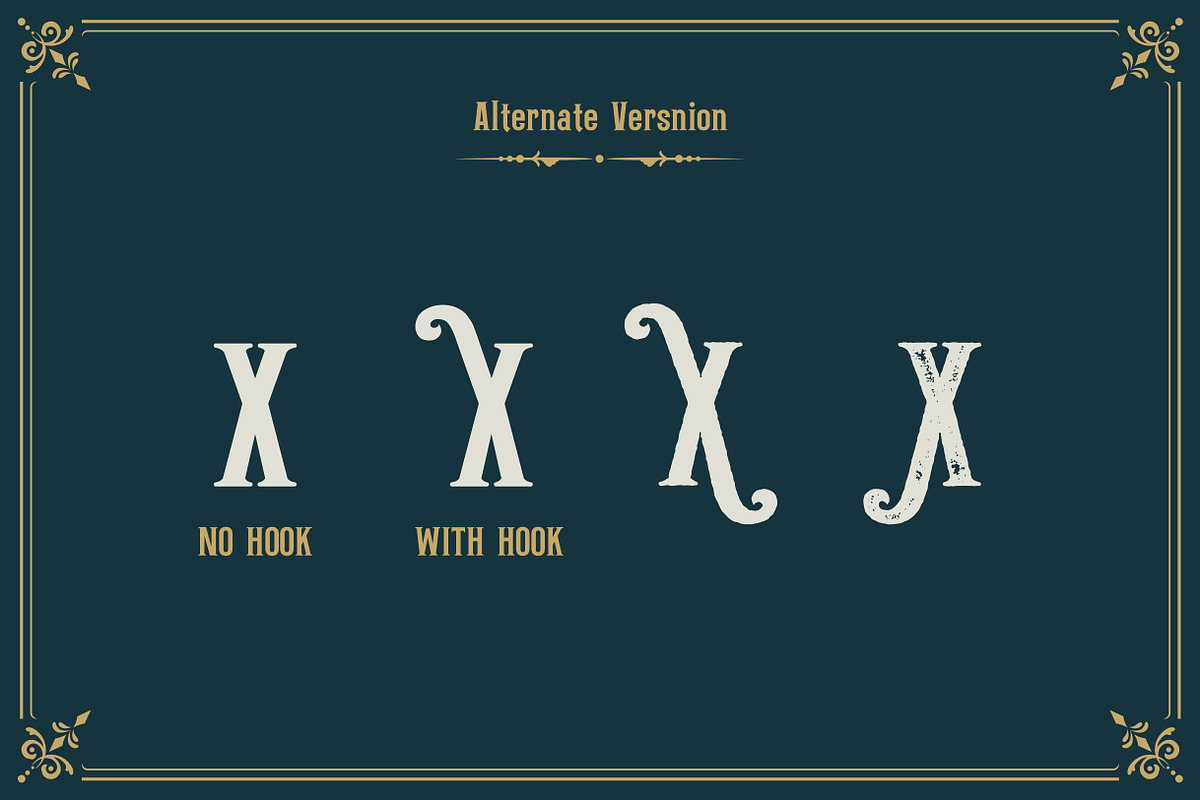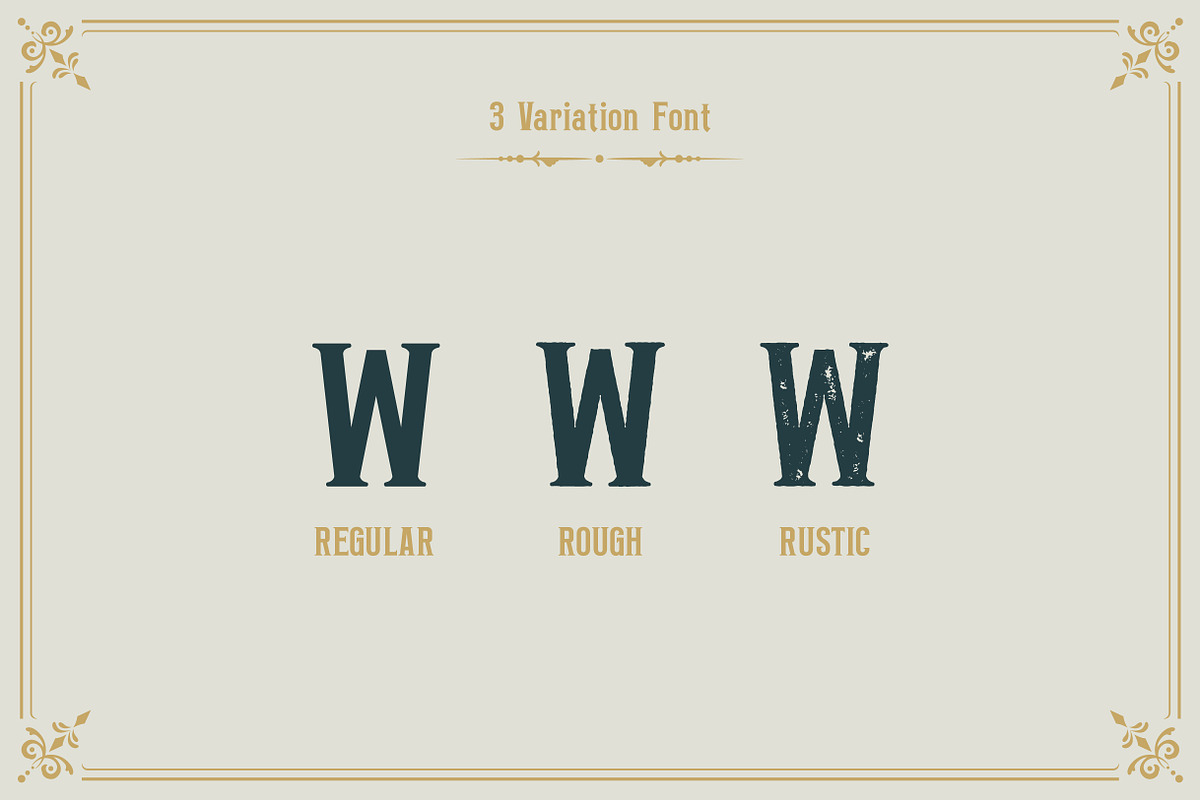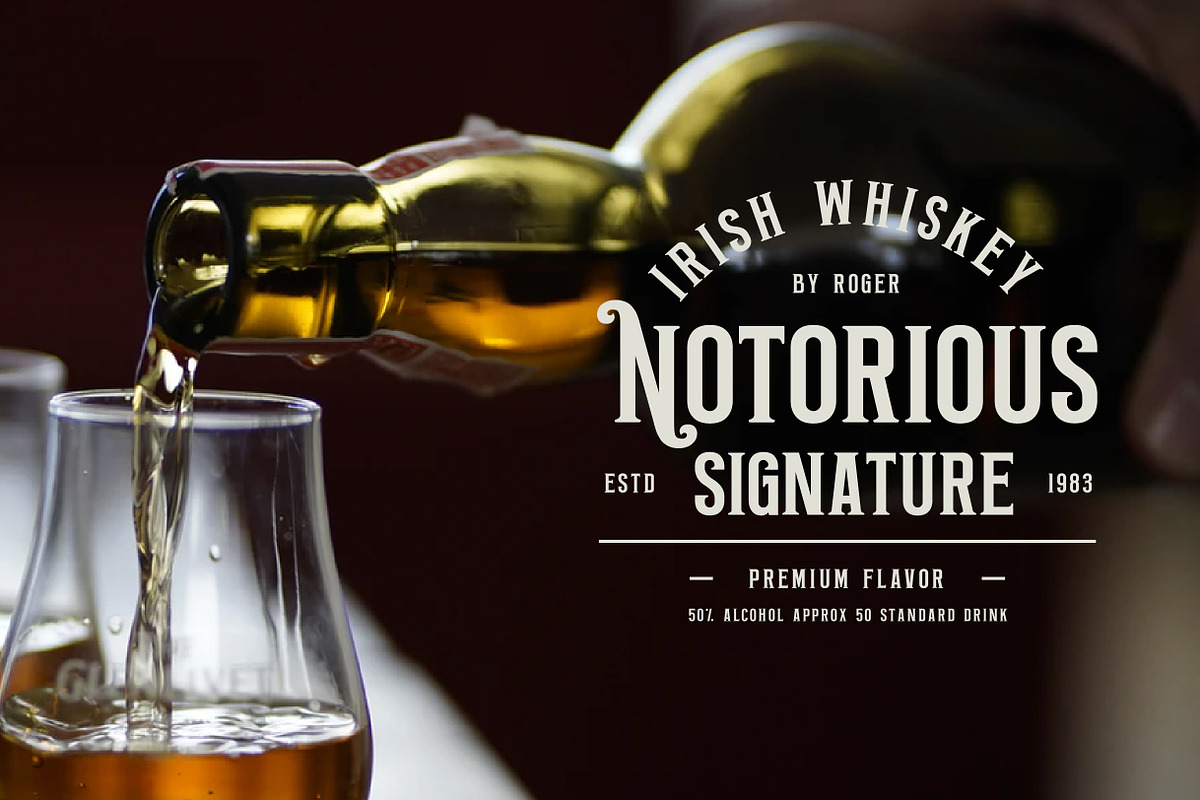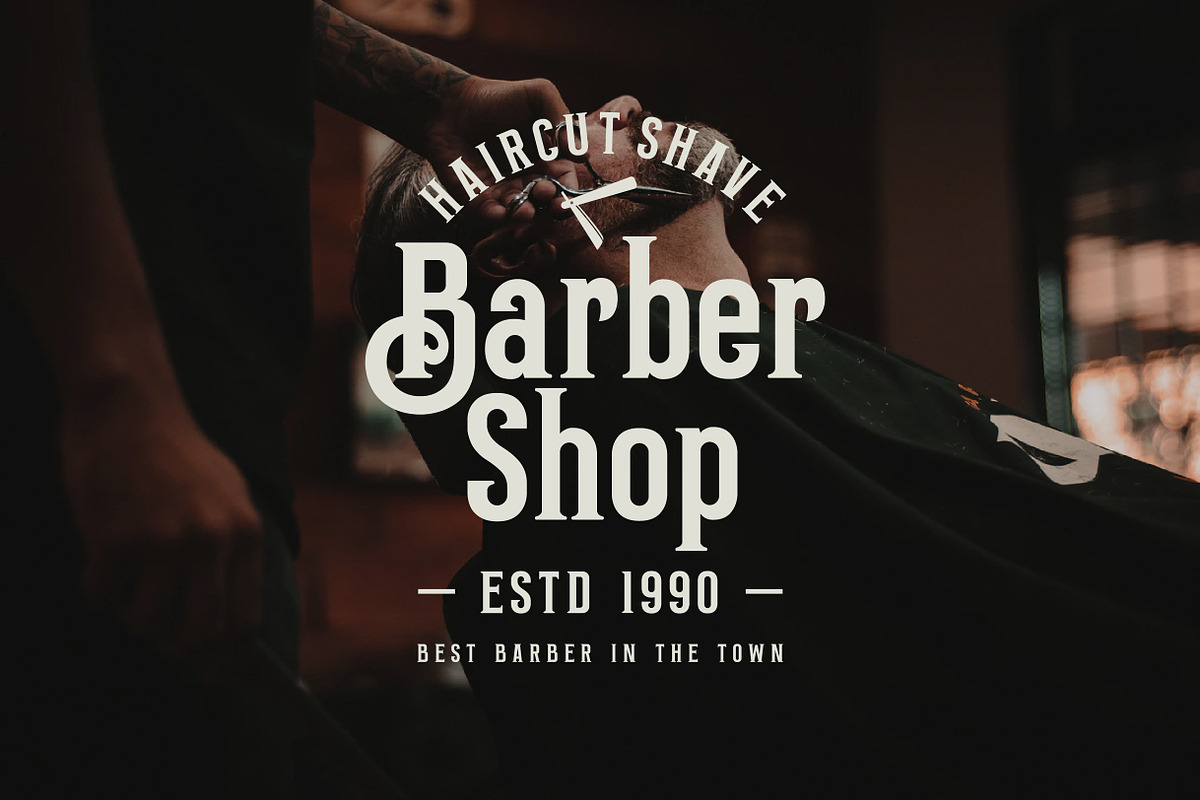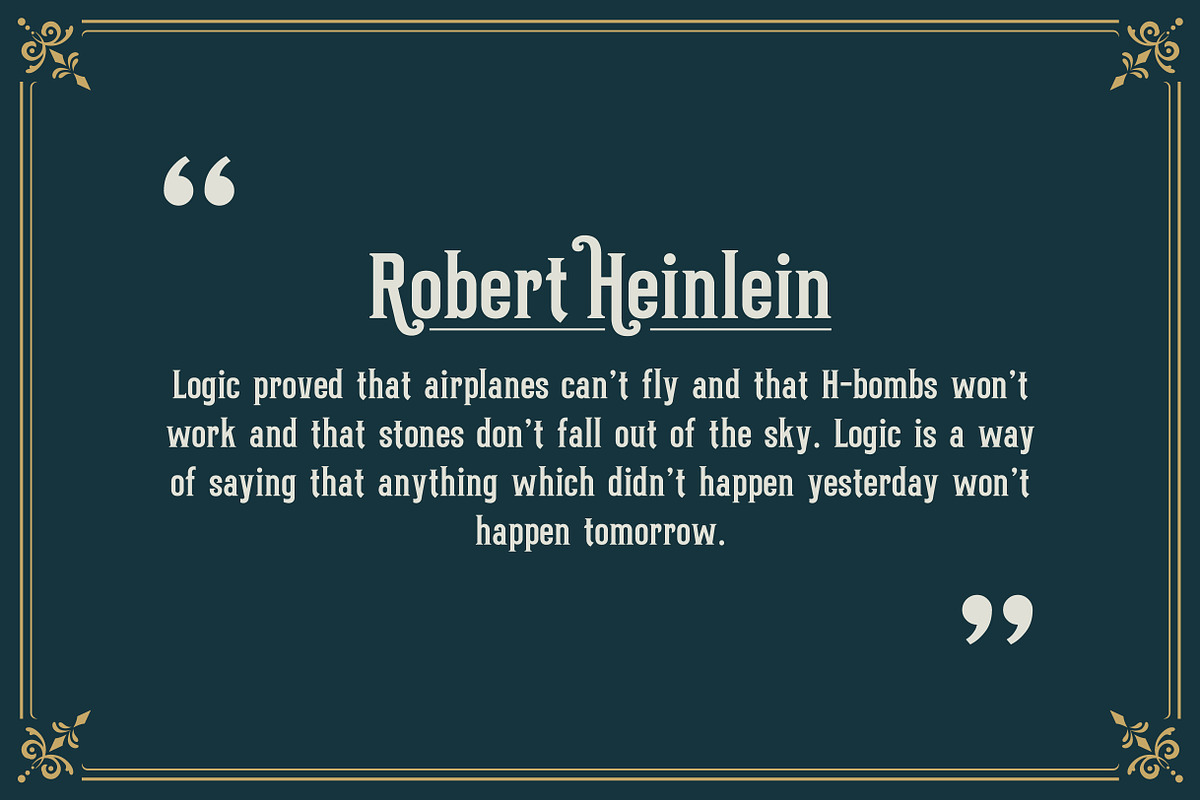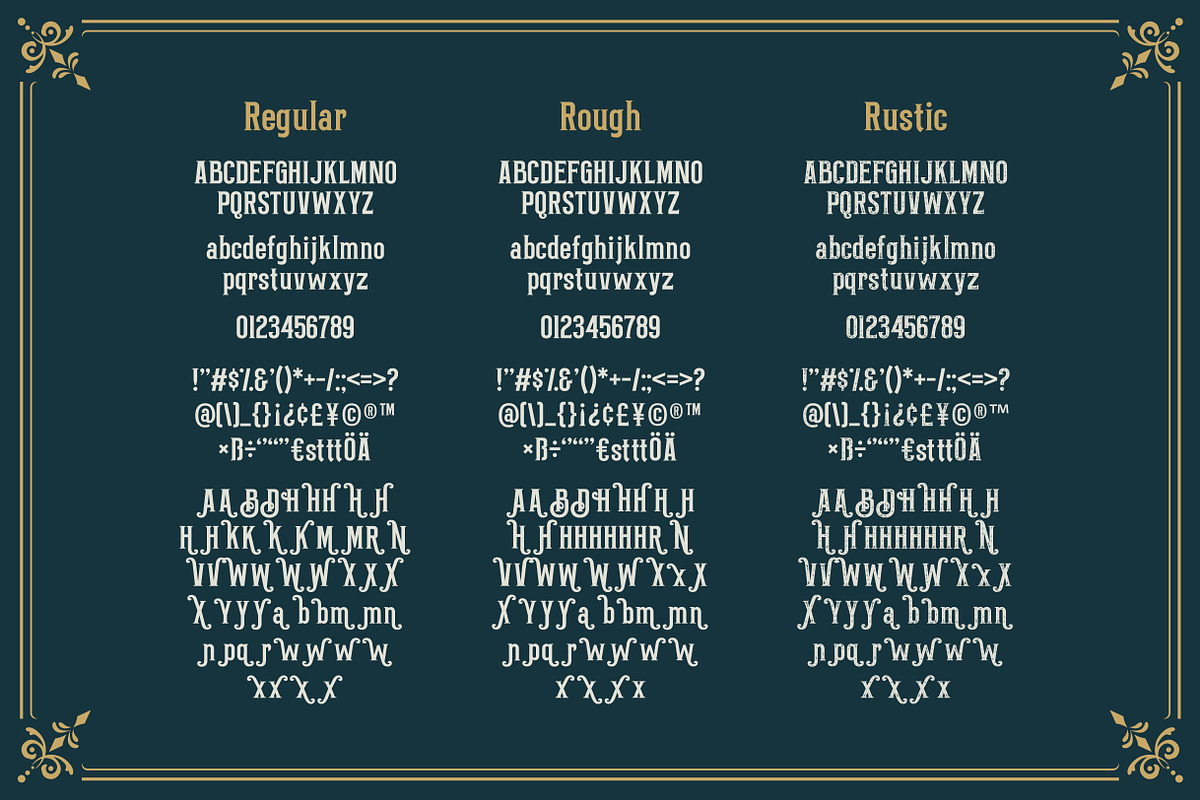
Aviation - Vintage Typeface
Introducing a vintage look layered label typeface named "Aviation". This typeface includes 3 styles (including effect styles and alternate variations).
Aviation Font is perfect for branding projects, logo, wedding designs, social media posts, advertisements, product packaging, product designs, label, photography, watermark, invitation, stationery, Badge, poster, t-shirt, label, logo etc.
- Ligature & Stylistic alternate
- This typeface includes 3 styles (including effect styles and alternate variations).